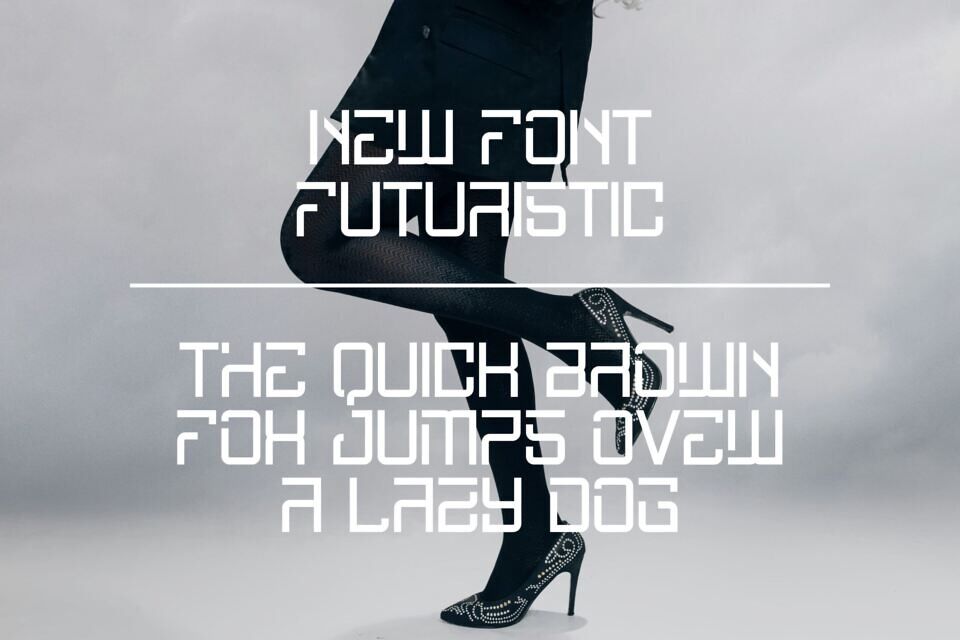
Cerpa Font
Cerpa is an incredibly unique sans serif display font. Masterfully designed to become a true favorite, this font has the potential to bring each of your creative ideas to the highest level!